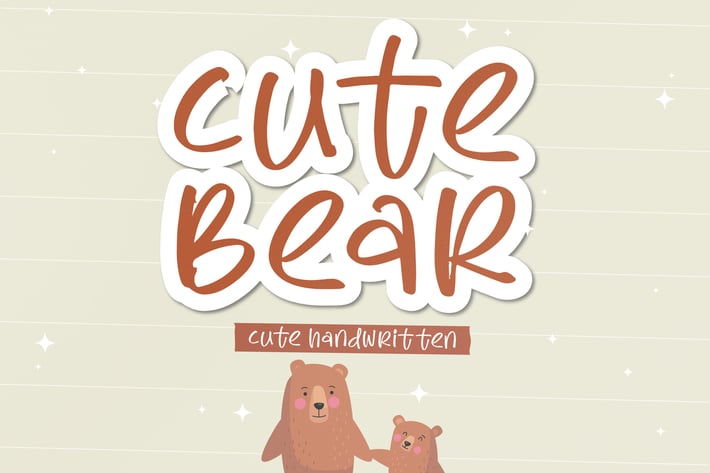
Cute Bear Cute Handwritten Font
Cute Bear Cute Handwritten Font is a playful and friendly handwritten typeface designed to bring warmth, joy, and cuteness into your designs. With rounded letterforms, soft strokes, and a charming hand-drawn feel, this font is perfect for kid-friendly projects, cheerful branding, and heartwarming visuals.
Cute handwritten style with rounded, bubbly letterforms
Friendly and approachable character perfect for playful designs
Easy to read while keeping a fun, casual personality
Works great for both digital and print projects
Multilingual support (standard Latin characters)
Children’s books and educational materials
Kids brands, toys, and playful packaging
Greeting cards, stickers, and posters
Social media posts and cute quotes
Personal projects, journals, and crafts
Branding for baby, kids, and family-oriented products
Sweet, cheerful, and full of charm — Cute Bear Cute Handwritten Font adds a smile to every word.